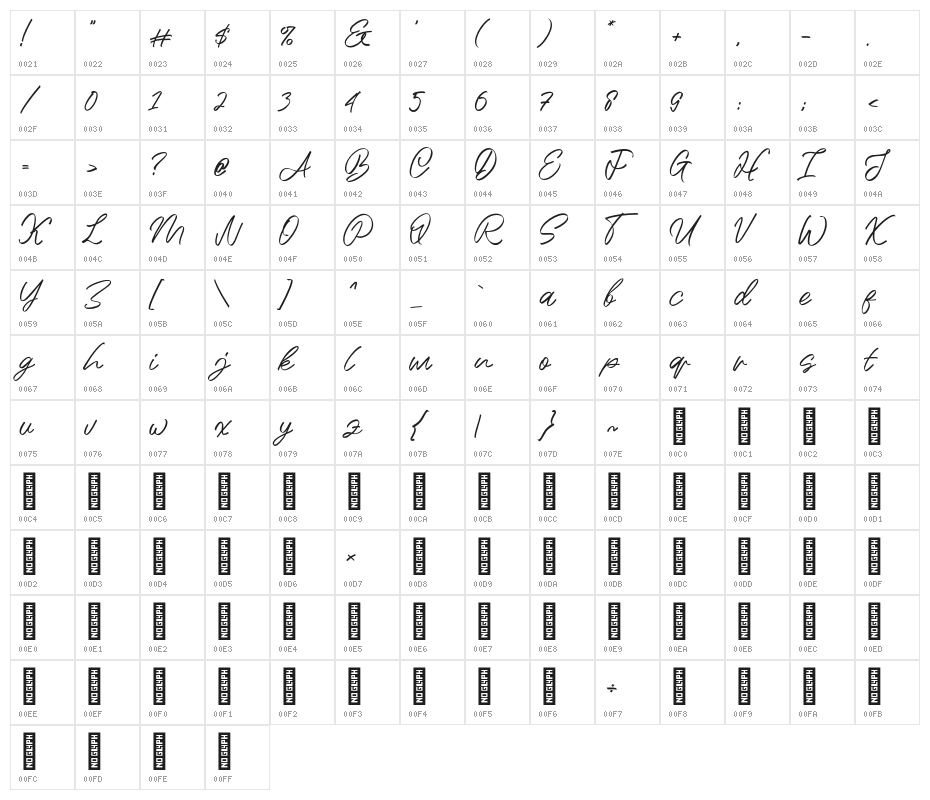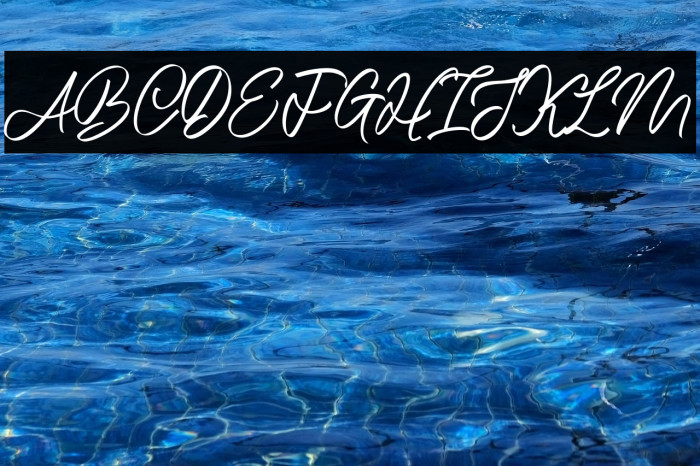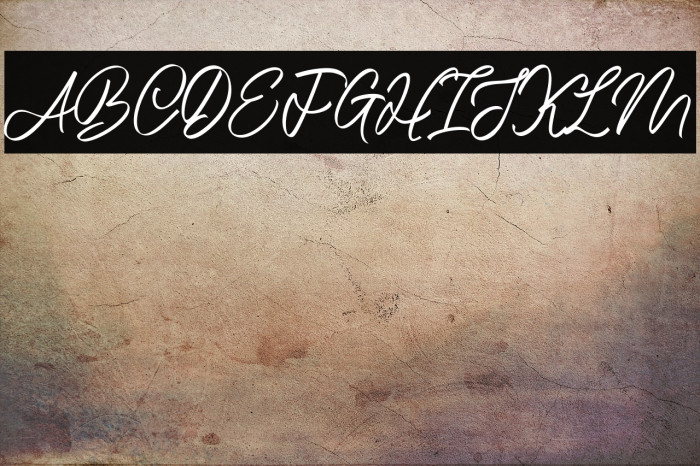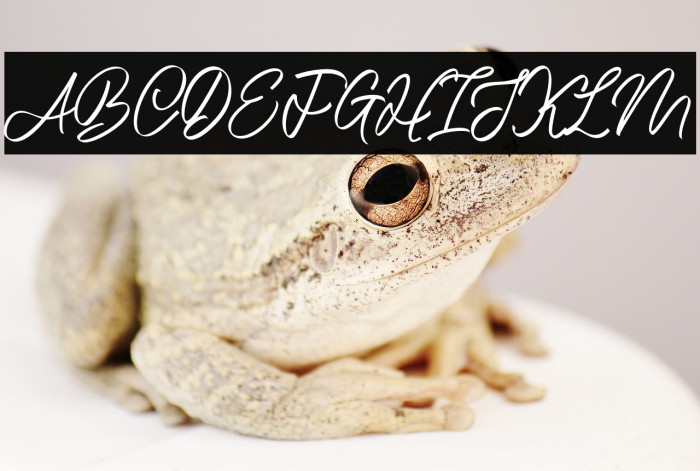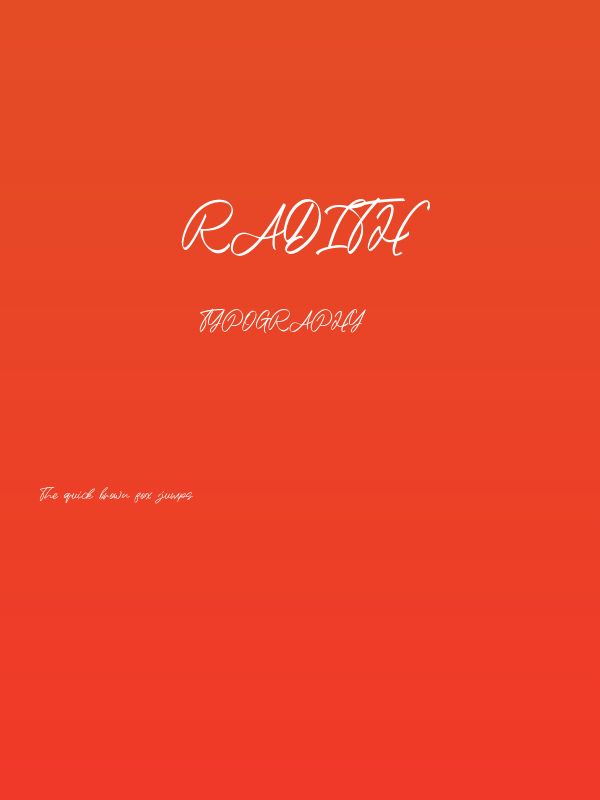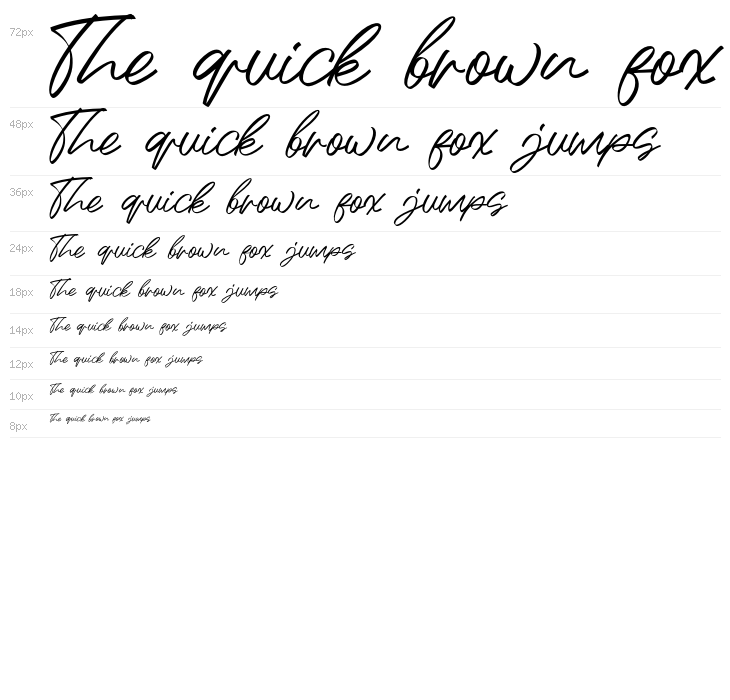
Radith Font
Radith Description
This font features a flowing, cursive style that mimics elegant handwriting. The characters are interconnected, creating a seamless and fluid appearance. The strokes are smooth and slightly varied in thickness, adding a touch of sophistication and grace. The uppercase letters are bold and prominent, while the lowercase letters maintain a consistent flow. Numbers and special characters are designed to match the overall cursive theme, ensuring a cohesive look across all elements. This font exudes a sense of personal touch and creativity, making it suitable for projects that require a handwritten aesthetic.
| Overall Style | Elegant, Handwritten |
| Use Case | Logos, Invitations, Artistic projects |
| Proposed Projects | Ideal for wedding invitations, greeting cards, personal branding, and artistic projects. |